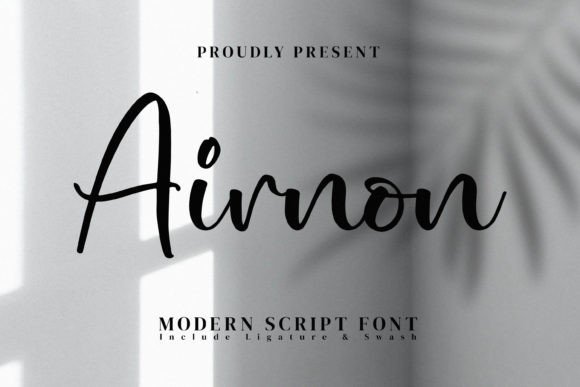
The Airnon Font: A Stylish and Elegant Handwritten Script Font
An Honest Review of Airnon Font
What I Love About Airnon Font ✨
- 💫 Elegant and stylish handwritten script font
- ✅ Highly versatile and adaptable to various design projects
- 🎨 Beautifully crafted with attention to detail
- 📚 Extensive character set, including OpenType features and glyphs
- ⚠️ May not be suitable for very small font sizes or body text
- 🤔 Limited availability of certain characters or alternates
The Story Behind Airnon Font
The Airnon font was designed by a talented typographer who drew inspiration from classic calligraphy and modern handwriting. The goal was to create a font that’s both elegant and approachable, suitable for a wide range of design projects. Whether it’s for a wedding invitation, a luxury brand, or a creative blog, Airnon font is sure to make a statement.
| Is Airnon font suitable for body text? | While Airnon font is beautiful and elegant, it’s recommended for headings, titles, or short paragraphs. For body text, a clearer font may be more suitable. |
In conclusion, the Airnon font is a stunning addition to any font library. Its elegant and stylish design makes it perfect for a wide range of creative projects. With its extensive character set, OpenType features, and beautiful craftsmanship, Airnon font is sure to become a favorite among designers, crafters, and creative hobbyists alike.